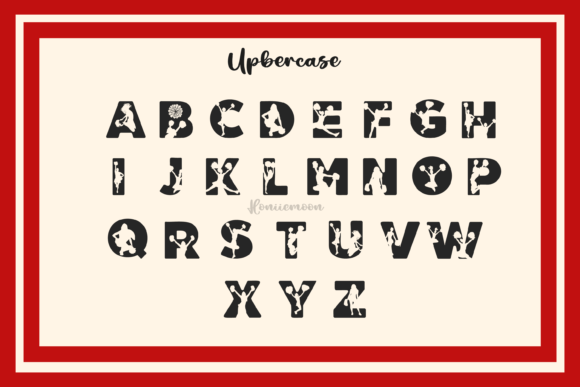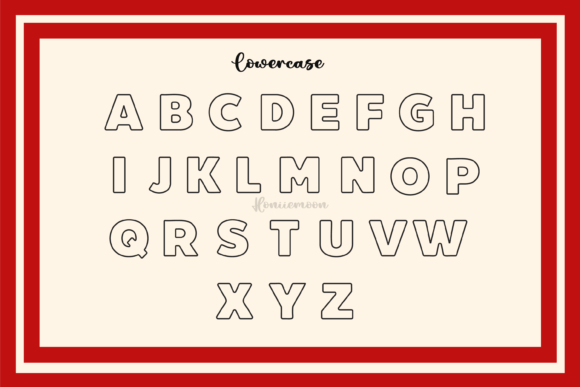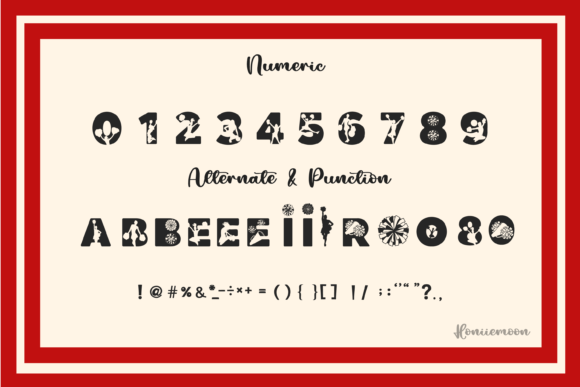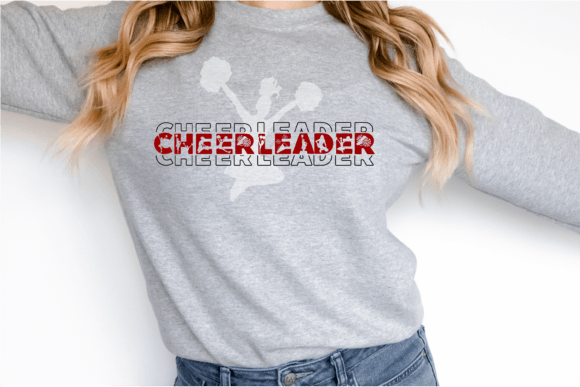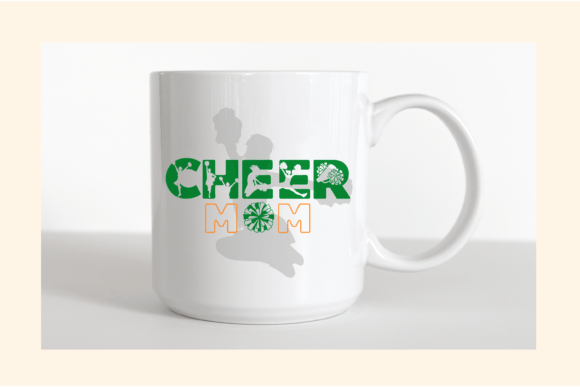
Introducing Cheerleader Font: The Ultimate Decorative Font for Your Creative Projects
Are you a designer, crafter, or DIY enthusiast looking for a font that can add a touch of fun and personality to your creative projects? Look no further than the Cheerleader Font! This cool and fun decorative font is designed to bring a smile to your face and make your designs stand out from the crowd.
What Makes Cheerleader Font So Special?
Cheerleader Font is a one-of-a-kind decorative font that exudes a sense of joy and playfulness. Its cute and jolly design makes it perfect for a wide range of creative projects, from party invitations and DIY crafts to social media graphics and branding materials. The font’s bold and colorful display is sure to grab attention and make your designs come alive!
Endless Possibilities with Cheerleader Font
The best part about Cheerleader Font is that it’s incredibly versatile. The only limit is your imagination! You can use it to create:
- Eye-catching party invitations and event flyers
- Fun and colorful DIY crafts, such as paper cards and gift tags
- Engaging social media graphics and posts
- Unique branding materials, such as logos and business cards
- And so much more!
Why Choose Cheerleader Font?
So, why should you choose Cheerleader Font for your creative projects? Here are just a few reasons:
- Unique Design: Cheerleader Font has a one-of-a-kind design that’s sure to make your projects stand out.
- High-Quality: Cheerleader Font is a high-quality font that’s designed to look great on any device or medium.
- Colorful and Bold: The font’s bold and colorful display is sure to grab attention and add a pop of fun to your designs.
Tips for Using Cheerleader Font
Here are a few tips for getting the most out of Cheerleader Font:
- Experiment with Colors: Try out different colors and combinations to find the perfect look for your project.
- Play with Sizes: Experiment with different font sizes to add emphasis and create visual interest.
- Mix and Match: Combine Cheerleader Font with other fonts and design elements to create a unique look.
| Font Name | Cheerleader Font |
| Author | Honiiemoon |